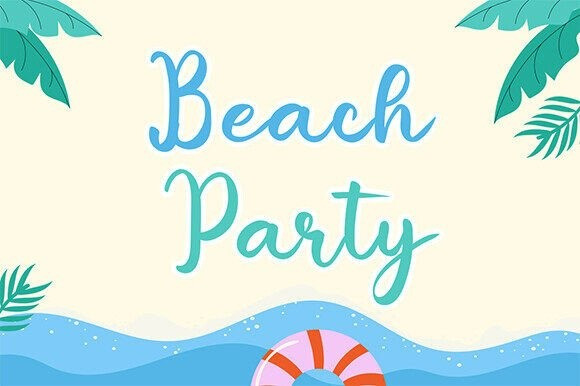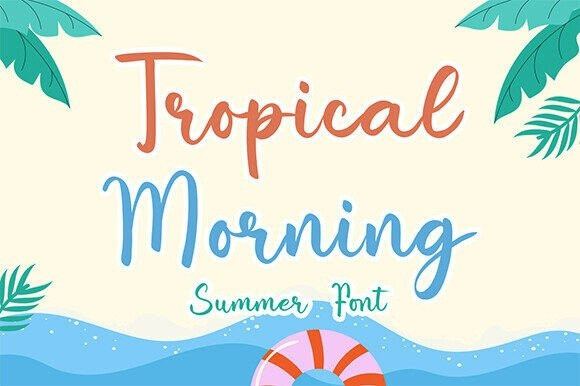
Tropical Morning Font is a fresh and lively handwritten script font that captures the warmth and carefree spirit of summer. Inspired by sunny days, ocean breezes, and tropical getaways, this font adds a playful, relaxed touch to any design.